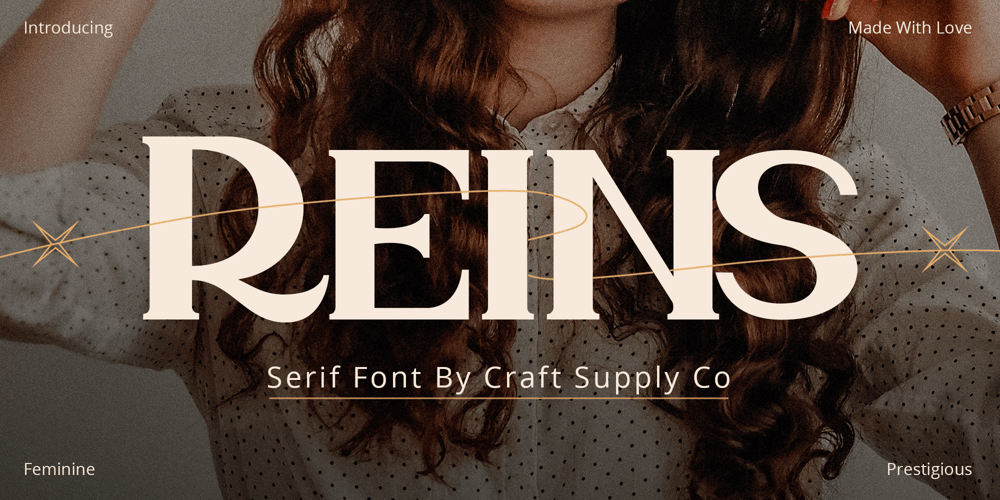
Reins Font Family was designed by Trio Nazzar Saputra, Wahyu Hadi Yuana and published by Craft Supply Co. Reins contains 1 styles and family package options. Introduction Introducing Reins – Serif Typeface, a masterpiece that exudes classic elegance with a modern twist. Initially, it captivates with its timeless appearance and style.Versatility at its Best Moreover, it’s incredibly versatile, adapting seamlessly to a multitude of projects. From logos to editorial designs, it enhances every artwork it graces. Furthermore, it brings out the richness in your content, making each word profoundly striking.Classic Appeal This typeface carries a classic appeal, gracefully bridging the past and the present. Coupled with a sense of nostalgia, it remains relevant and attractive for contemporary designs. Therefore, each character stands out, adding a touch of historical elegance.